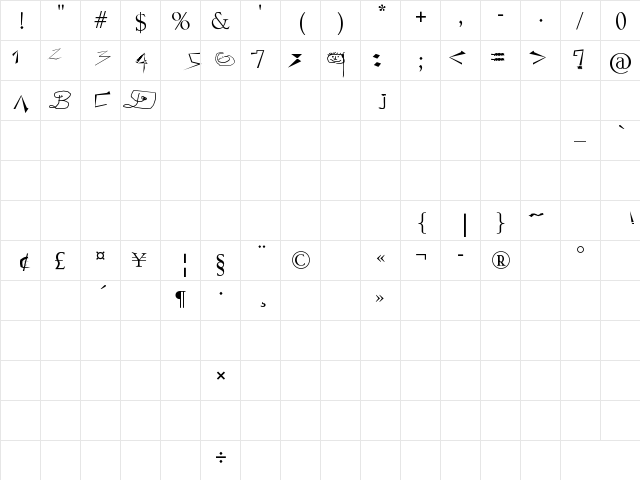
Numbers by AKSHAT SRIVASTAVA Regular
Design Context for Numbers by AKSHAT SRIVASTAVA Typeface
Numbers by AKSHAT SRIVASTAVA is a composed and adaptable typeface that performs quietly and consistently across a wide range of design contexts.